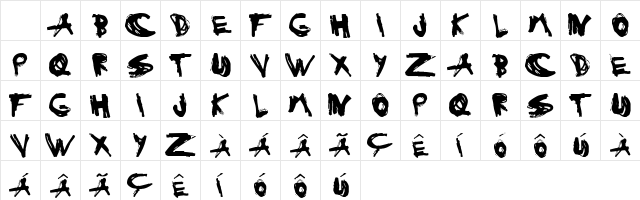
Complete Estuque Heavy glyph index. Displaying only characters natively supported by Estuque Heavy font.
Estuque is a composed and adaptable typeface that performs quietly and consistently across a wide range of design contexts.